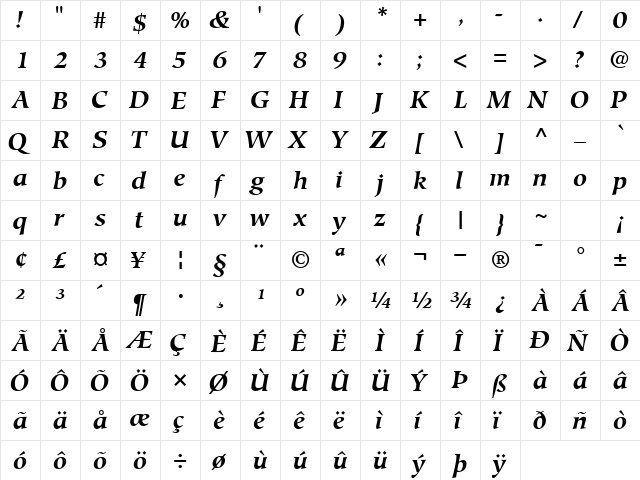
GlossarySSK BoldItalic
Design Context for GlossarySSK Typeface
GlossarySSK is a composed and adaptable typeface that performs quietly and consistently across a wide range of design contexts. Its italic angle brings a sense of urgency and motion to the letterforms. The heavy weight commands attention and anchors typographic hierarchies.
Pro Tip: Try GlossarySSK for annotation and caption copy alongside an upright companion — the contrast in angle creates a dynamic but ordered typographic system.